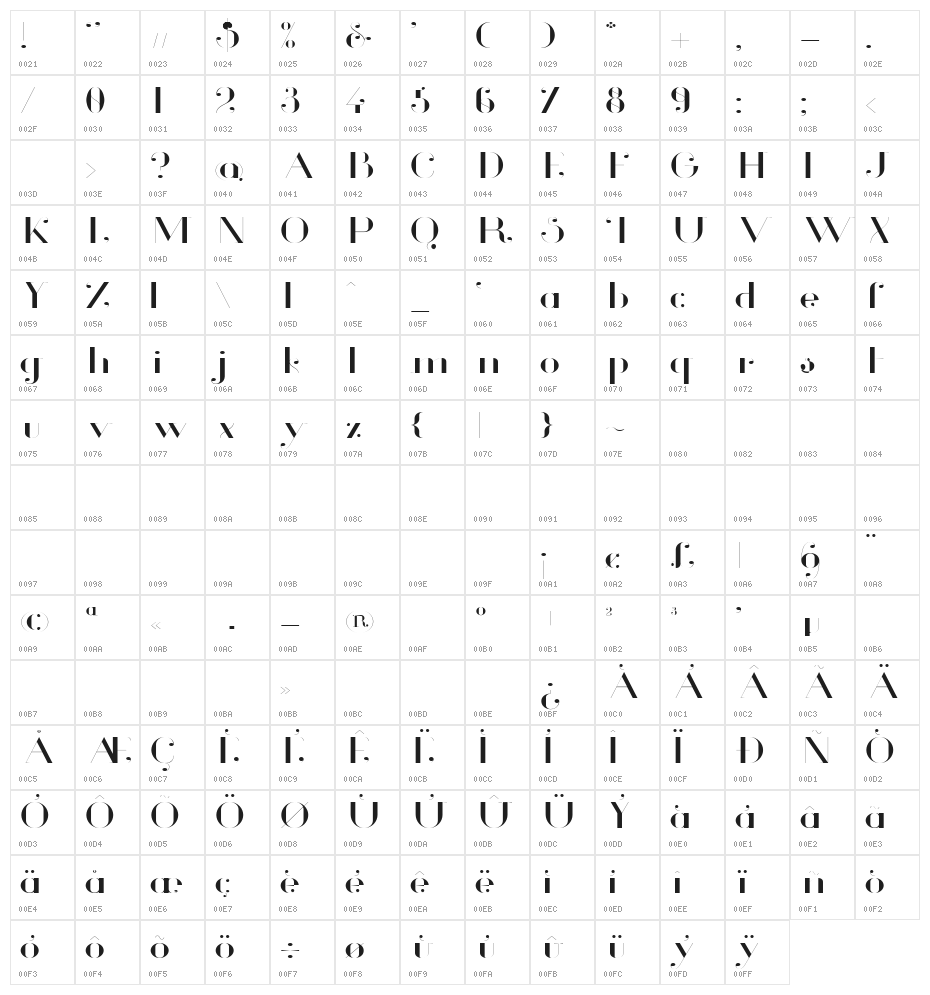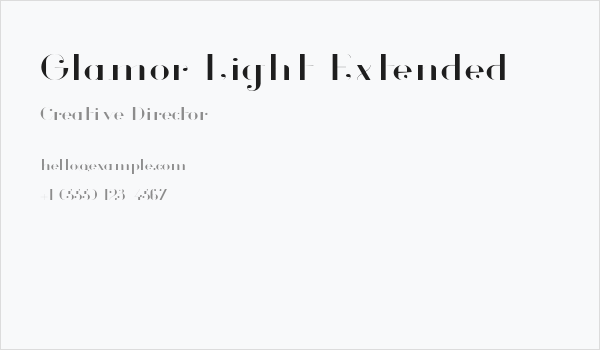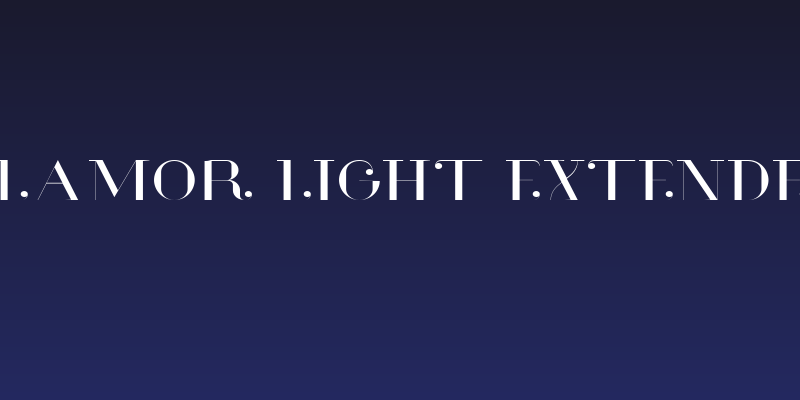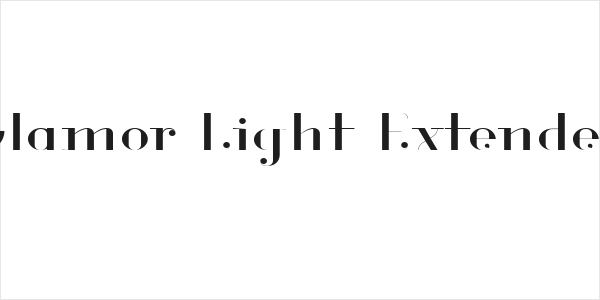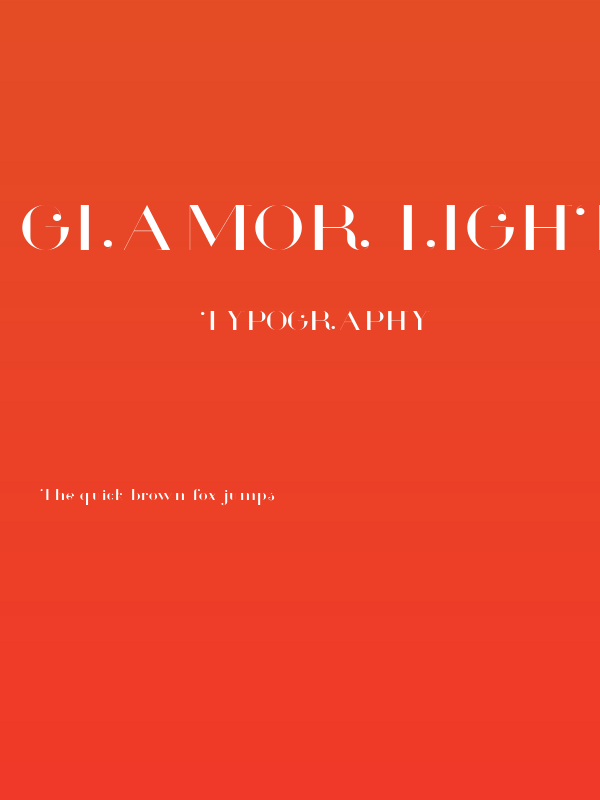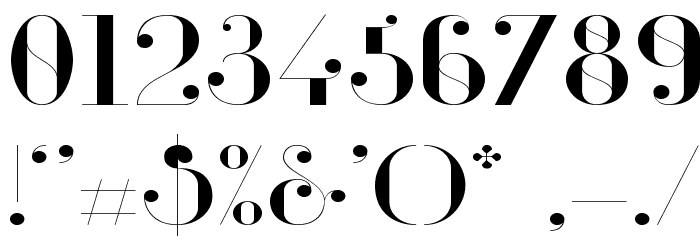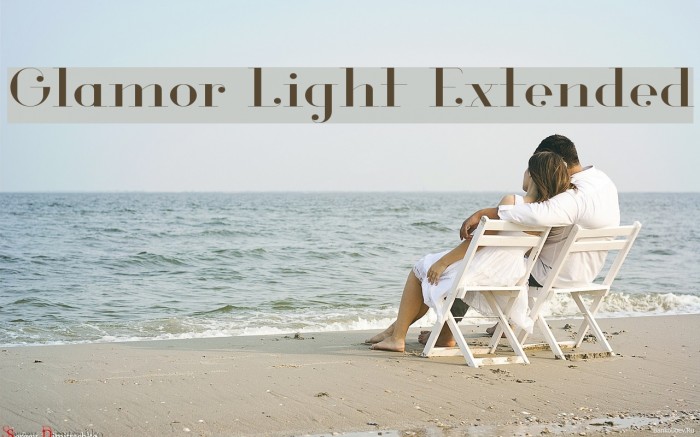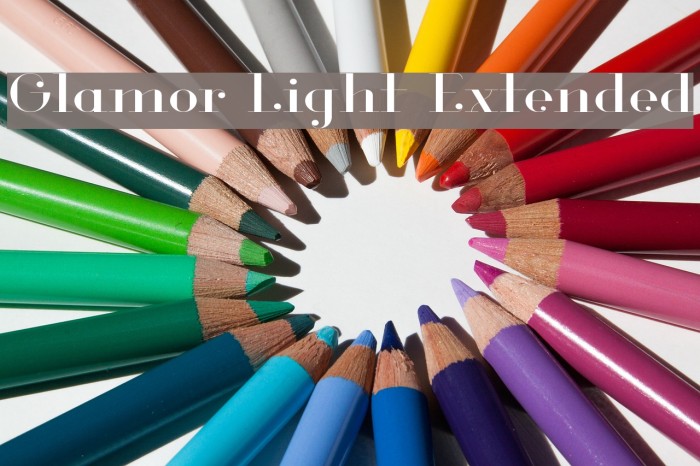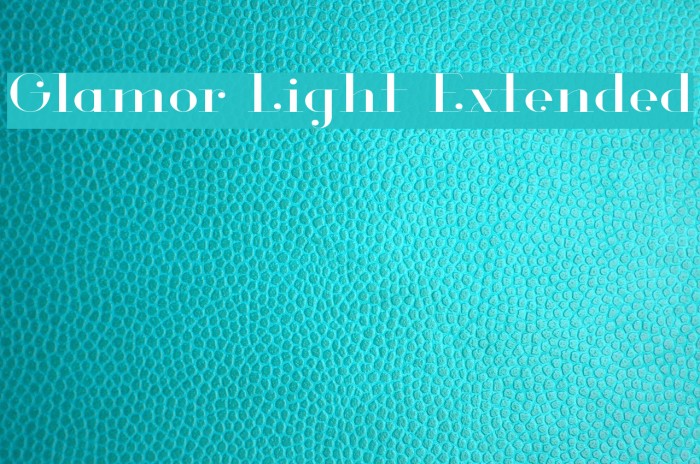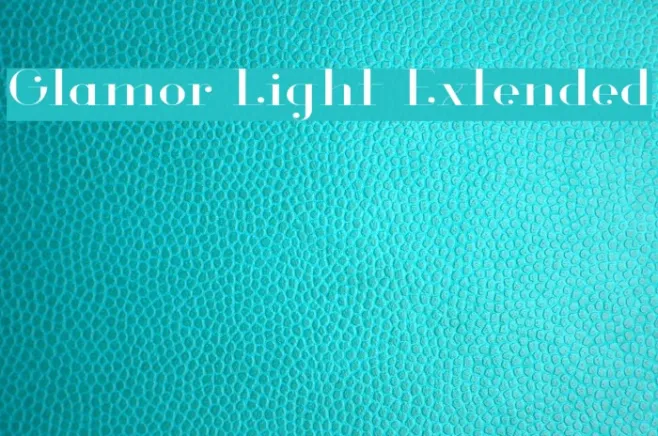
Glamor Light Extended Font
Glamor Light Extended Description
This font features a sophisticated and elegant design with a high contrast between thick and thin strokes, creating a striking visual impact. The characters are elongated and have a refined, modern aesthetic, making them ideal for upscale branding and editorial design. The uppercase letters are particularly distinctive, with unique flourishes and a sense of grandeur. The lowercase letters maintain a consistent style, complementing the uppercase with their sleek and stylish appearance. The numerals and special characters follow the same design principles, ensuring a cohesive look across all text elements.
| Overall Style | Elegant and Sophisticated |
| Use Case | Headlines, Logos, Editorial Design |
| Proposed Projects | Ideal for luxury branding, fashion magazines, high-end packaging, and elegant invitations. |